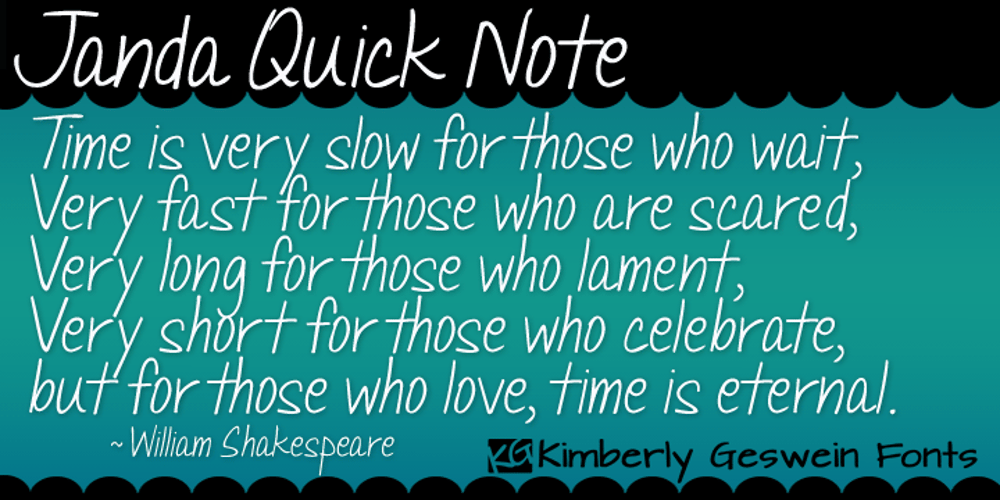
Janda Quick Note Font Family was designed by Kimberly Geswein and published by Kimberly Geswein. Janda Quick Note contains 1 styles and family package options. Messy, legible, feminine handwriting. Just like a jotted down note or shopping list.